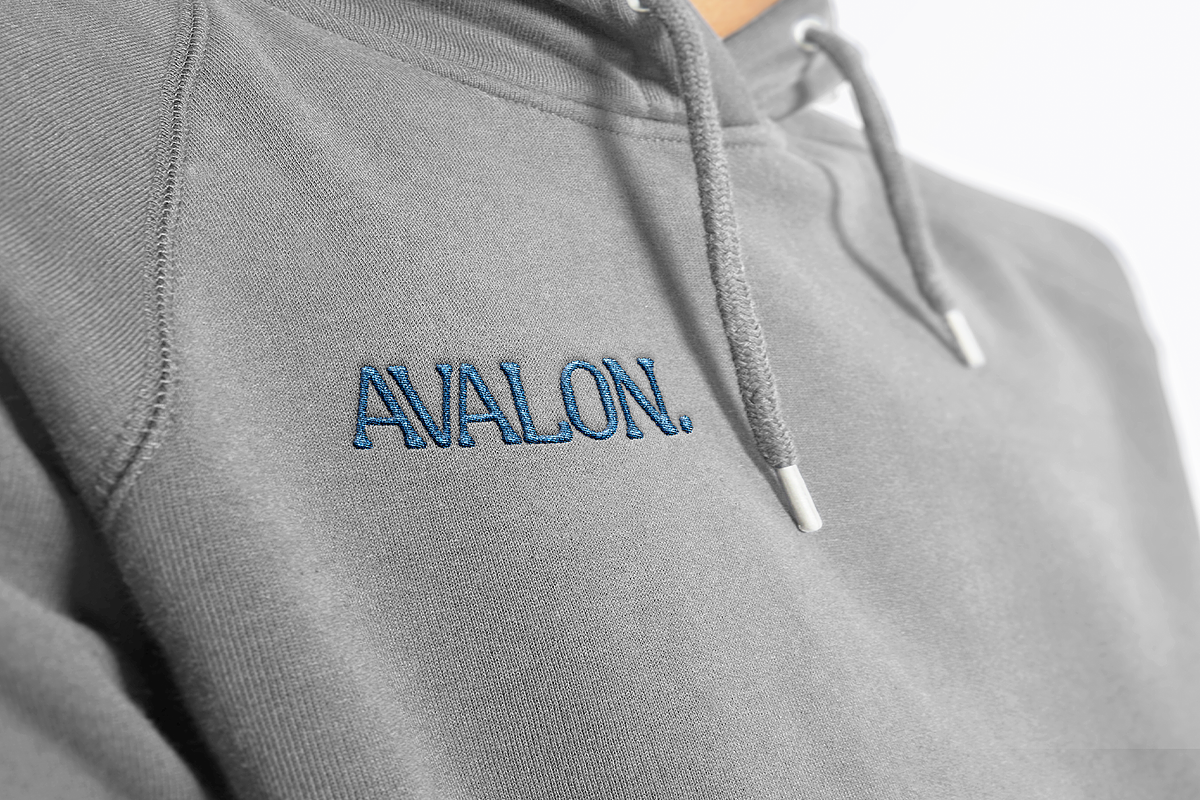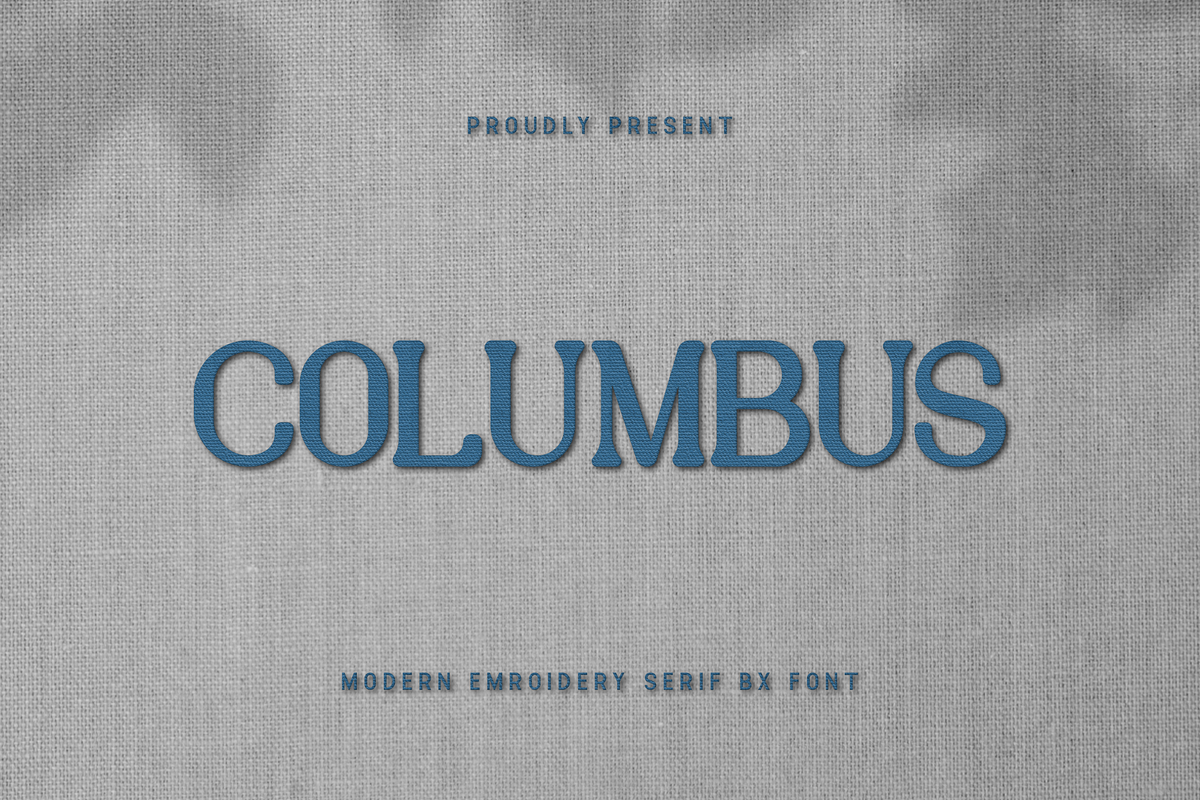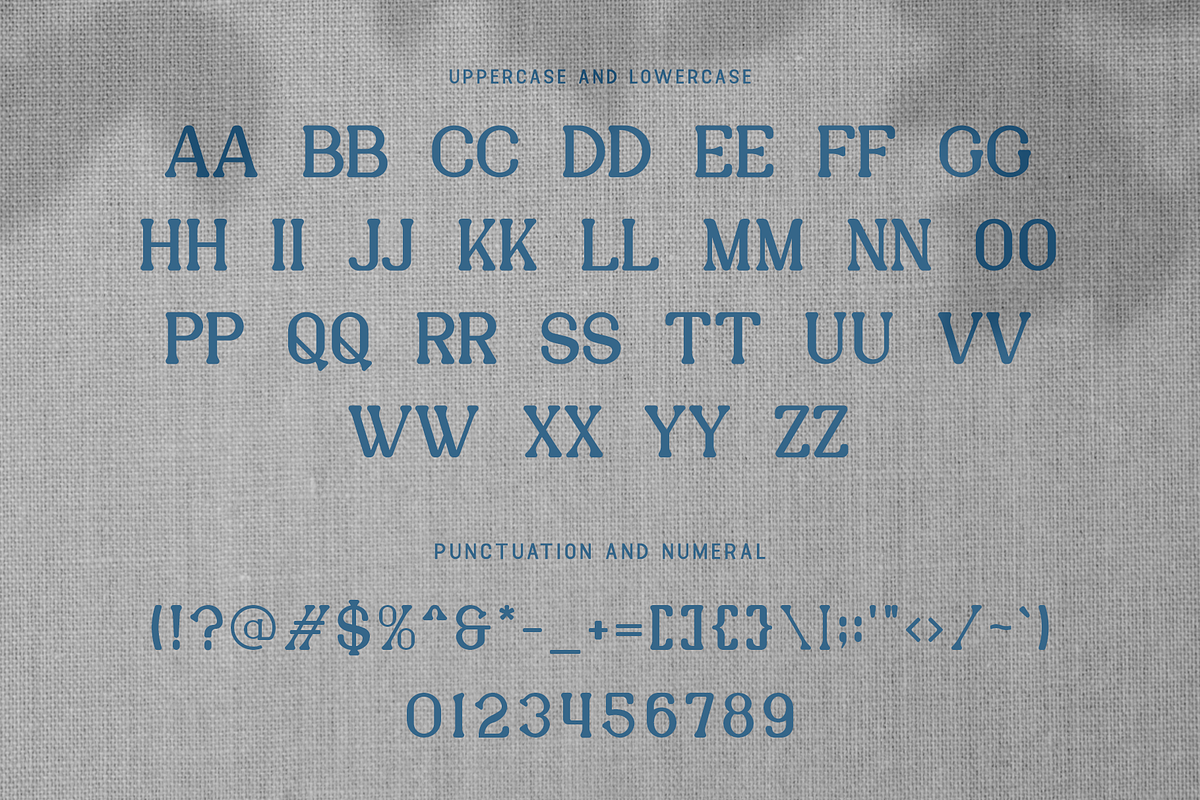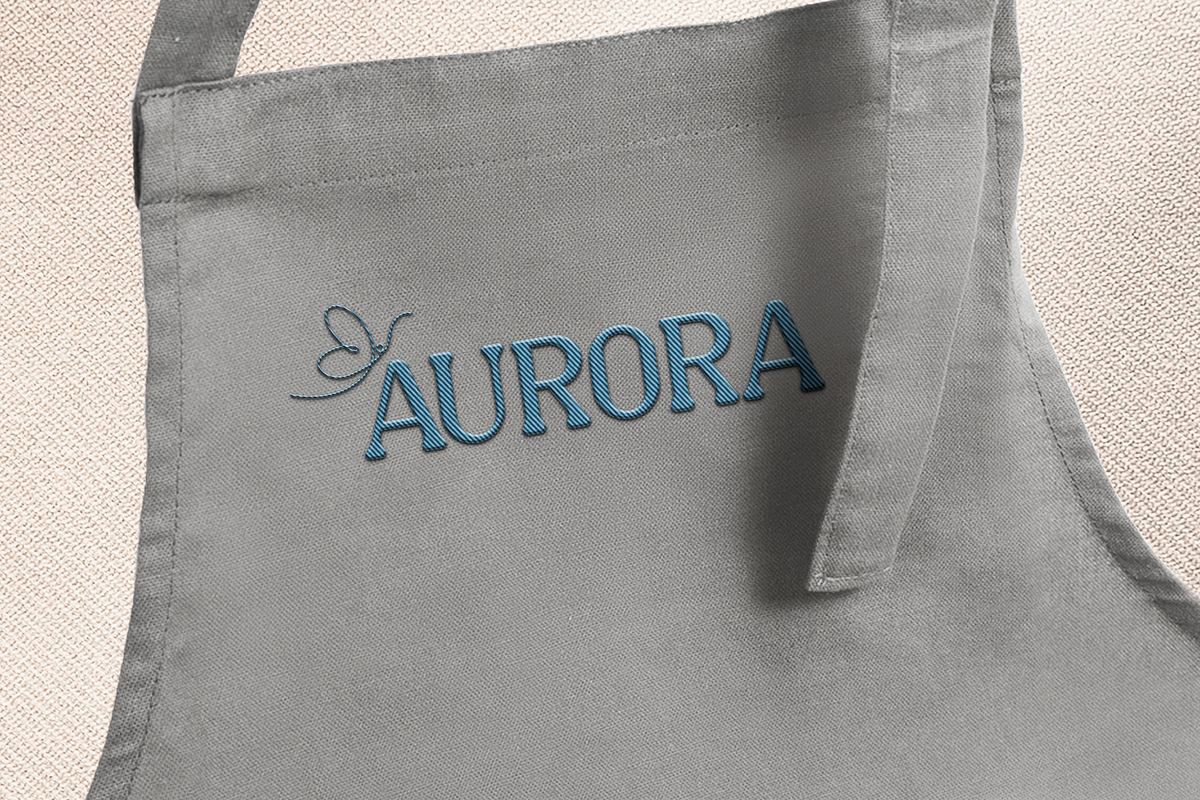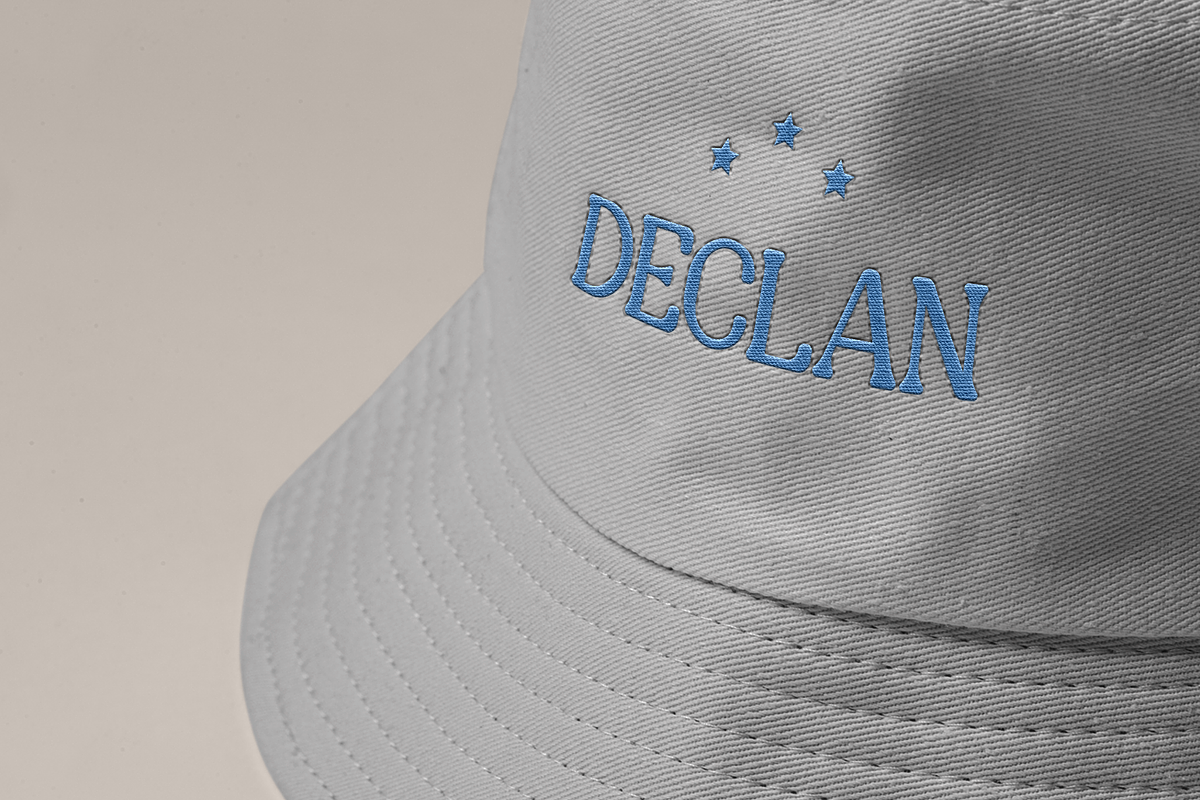
Columbus - Modern Embroidery Serif BX Font
Introducing "Columbus," a modern embroidery serif BX font that blends traditional craftsmanship with contemporary design. Perfect for designers and crafters looking to add a touch of refined elegance to their projects, Columbus combines the intricate detail of embroidery with the clean lines of modern serif typography.
Expertly crafted, Columbus is ideal for a variety of creative applications, including apparel design, home decor, personalized gifts, and more. Each character features detailed stitching that replicates the beauty of hand-embroidered letters, adding a unique and sophisticated texture to your typography.
The "Columbus" font includes a complete set of uppercase and lowercase letters, numbers, and punctuation marks, providing versatility and flexibility for all your embroidery needs. Whether you're embellishing garments or creating decorative home accessories, Columbus enhances your designs with its elegant and timeless aesthetic.
Discover the perfect blend of tradition and modernity with Columbus, a modern embroidery serif BX font that elevates your creations with sophisticated charm.